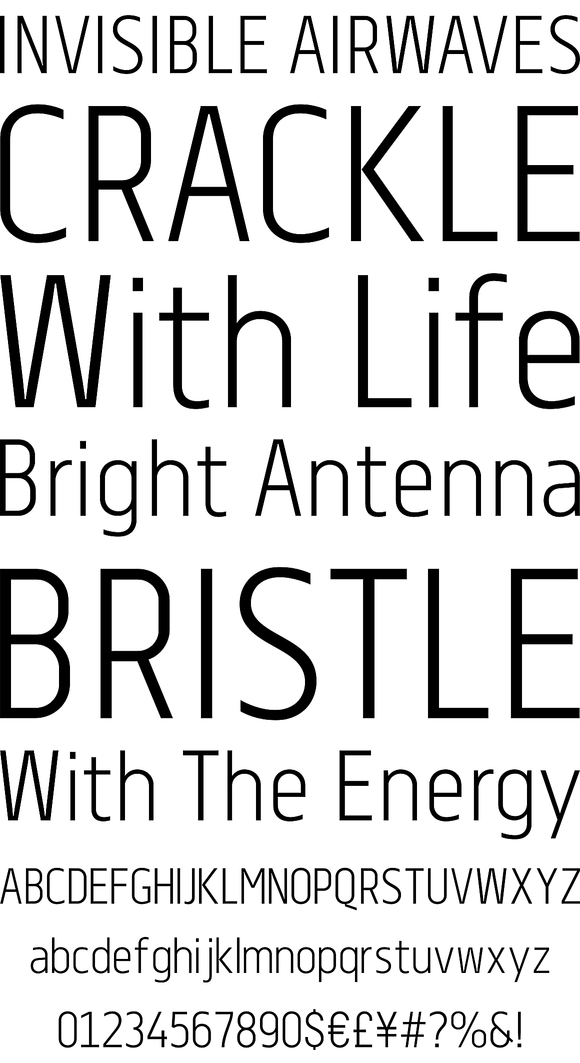
Centima
Foundry: TipografiaRamis
Centima - a geometric sans serif typeface family, built in six styles. The typeface is intended for use in display sizes, but also is quite legible in text and is well suited for editorial and brand design. Centima is released in OpenType format with support for most European languages and includes some opentype features - proportional/tabular, lining/oldstyle figures, slashed zero, ligatures, fractions.